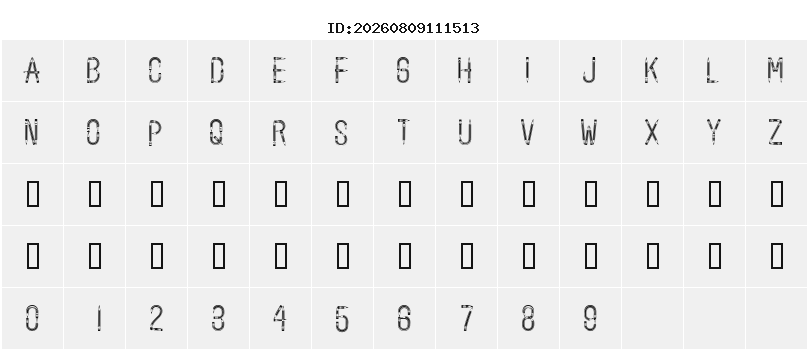
• Font Name: Pencilled
• Full Font Name: Pencilled
About Pencilled.ttf
Pencilled.ttf is a modern, elegant sans-serif font designed for ultimate readability and visual harmony. Perfect for branding, headlines, web design, and print materials.